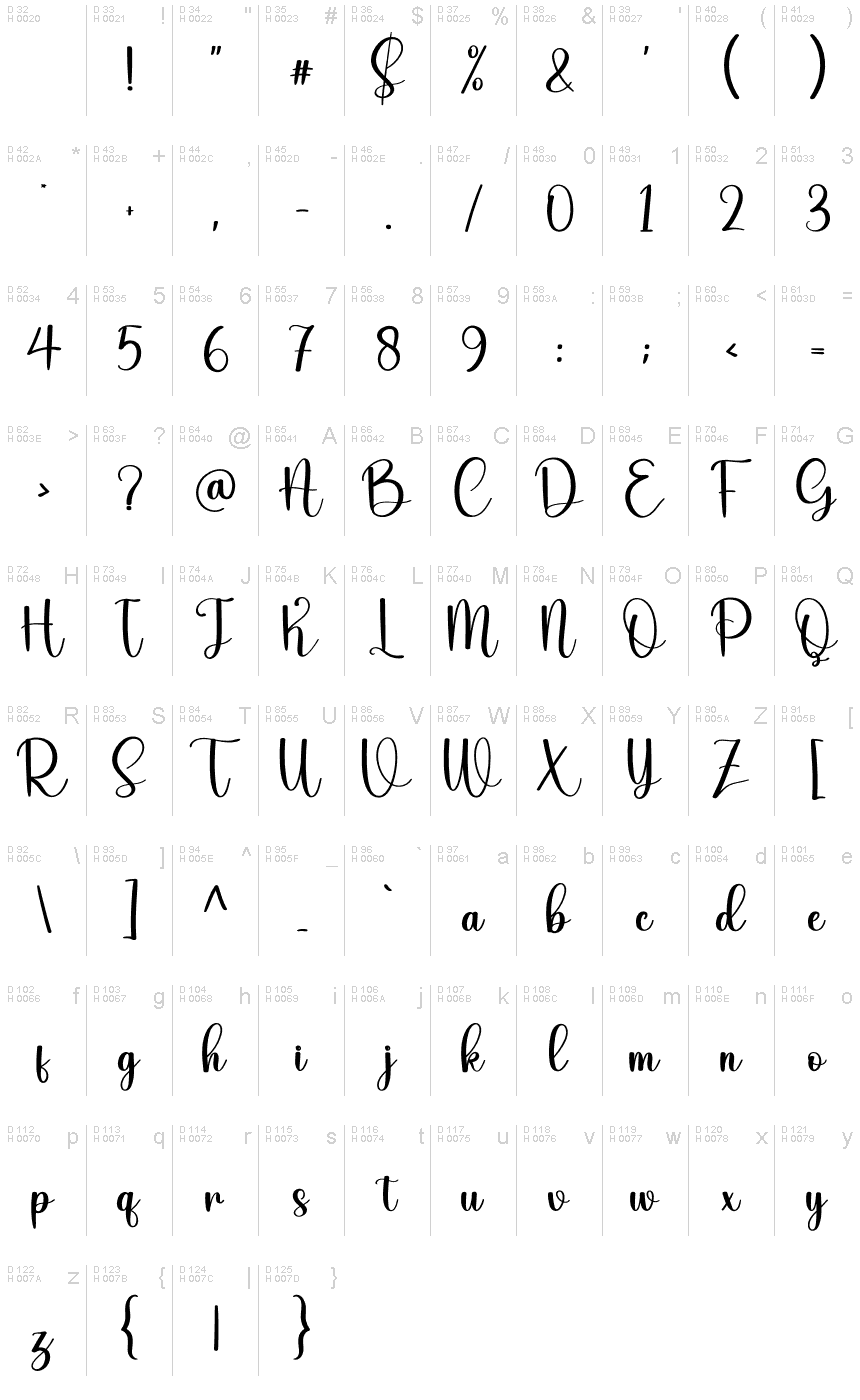
Creamy
Creamy, a mesmerizing calligraphy font by Harlek Studio, effortlessly embodies elegance and sophistication. With its semi-light weight, Creamy delicately dances across the page, leaving a graceful touch wherever it goes.
This enchanting font is perfect for wedding invitations, romantic love letters, or any project that aims to evoke feelings of tenderness and charm. Its flowing strokes and intricate details add an air of whimsy and allure to any design.
Let Creamy bewitch your audience with its timeless beauty and bring your creative visions to life.